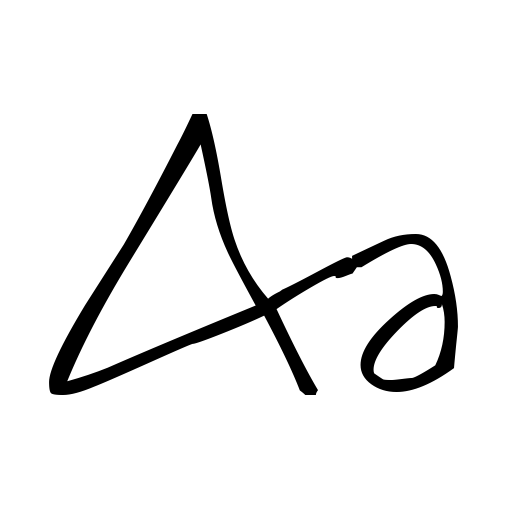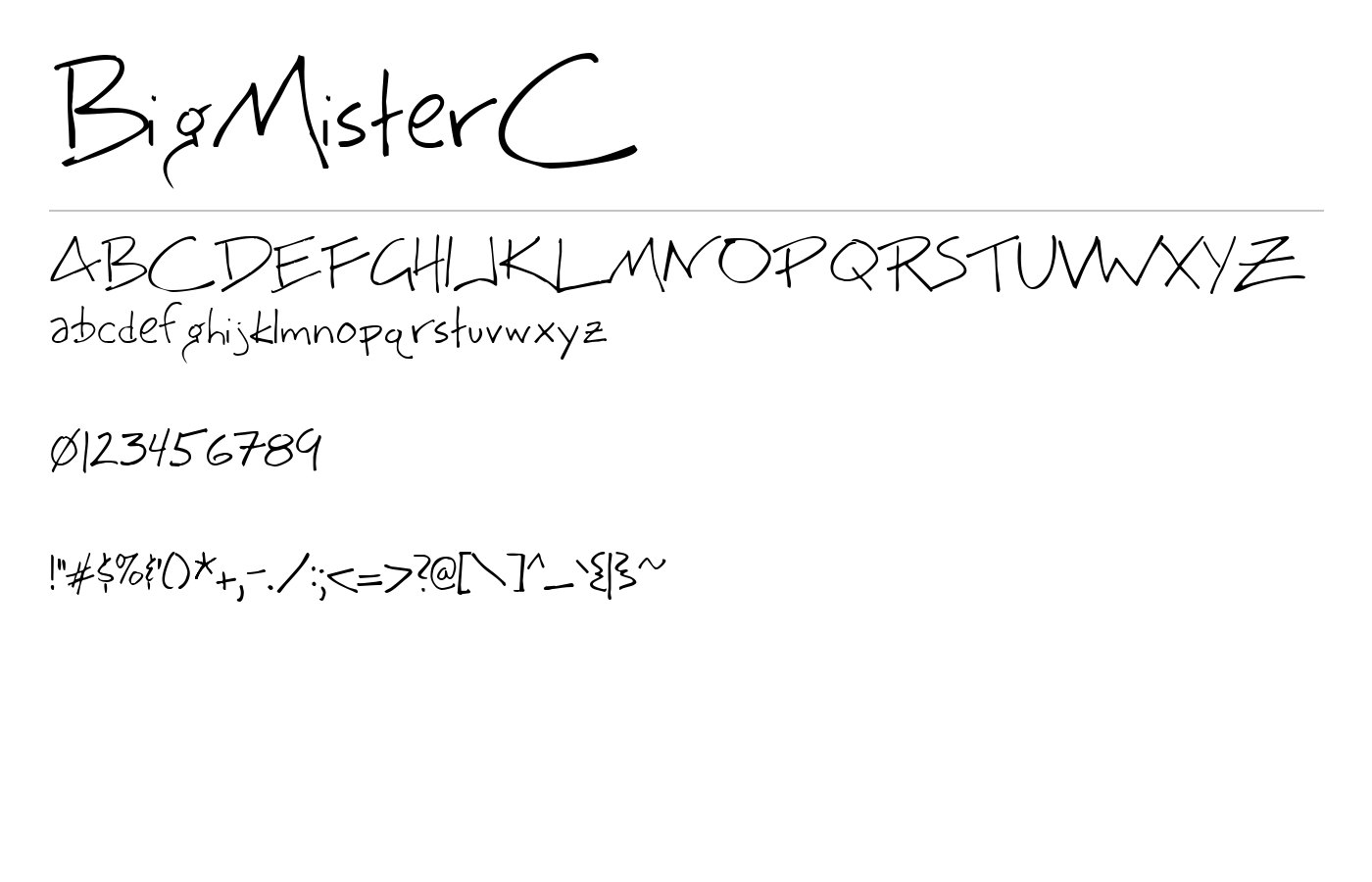
BigMisterC is a playful, handwritten-style sans serif font with a casual and slightly quirky feel. Its thin, uneven strokes and distinctive character shapes give it a spontaneous, informal personality that works well for creative projects, personal branding, and fun, approachable designs. This font shines in headline use, invitations, and artistic contexts where a relaxed, human touch is desired.
BigMisterC Font
About BigMisterC Font